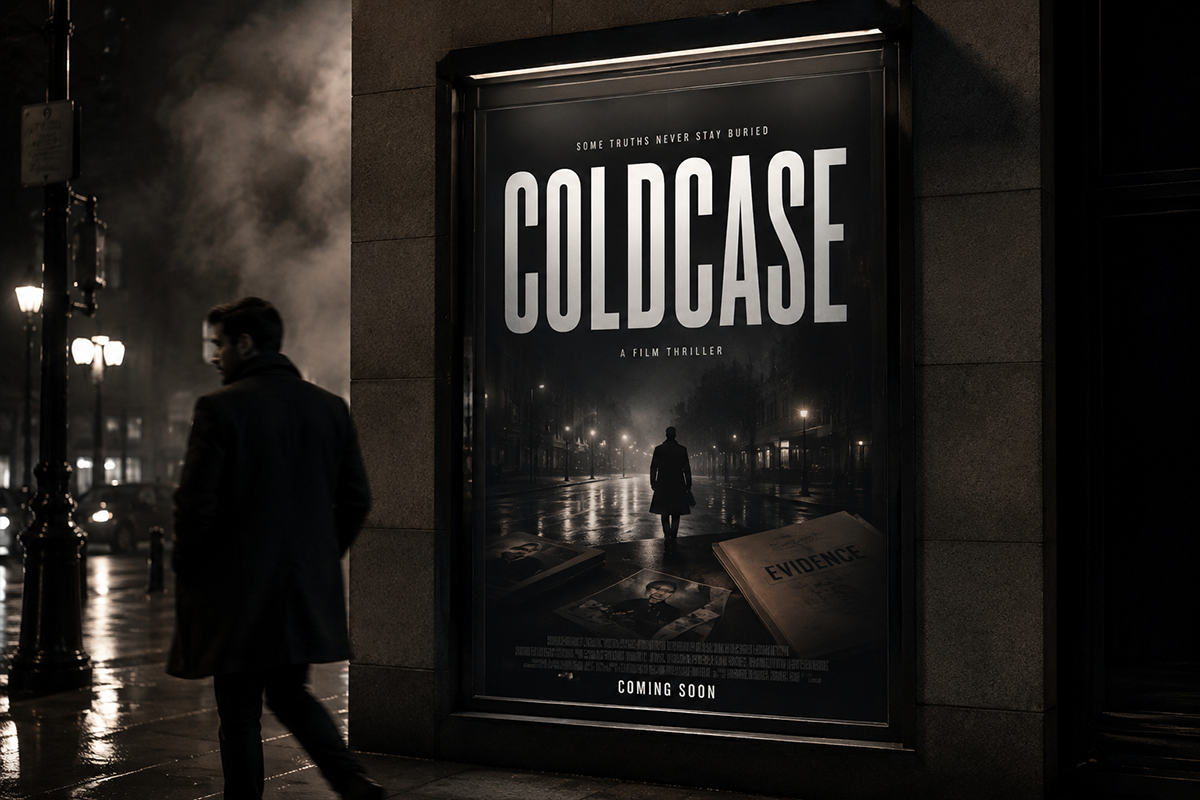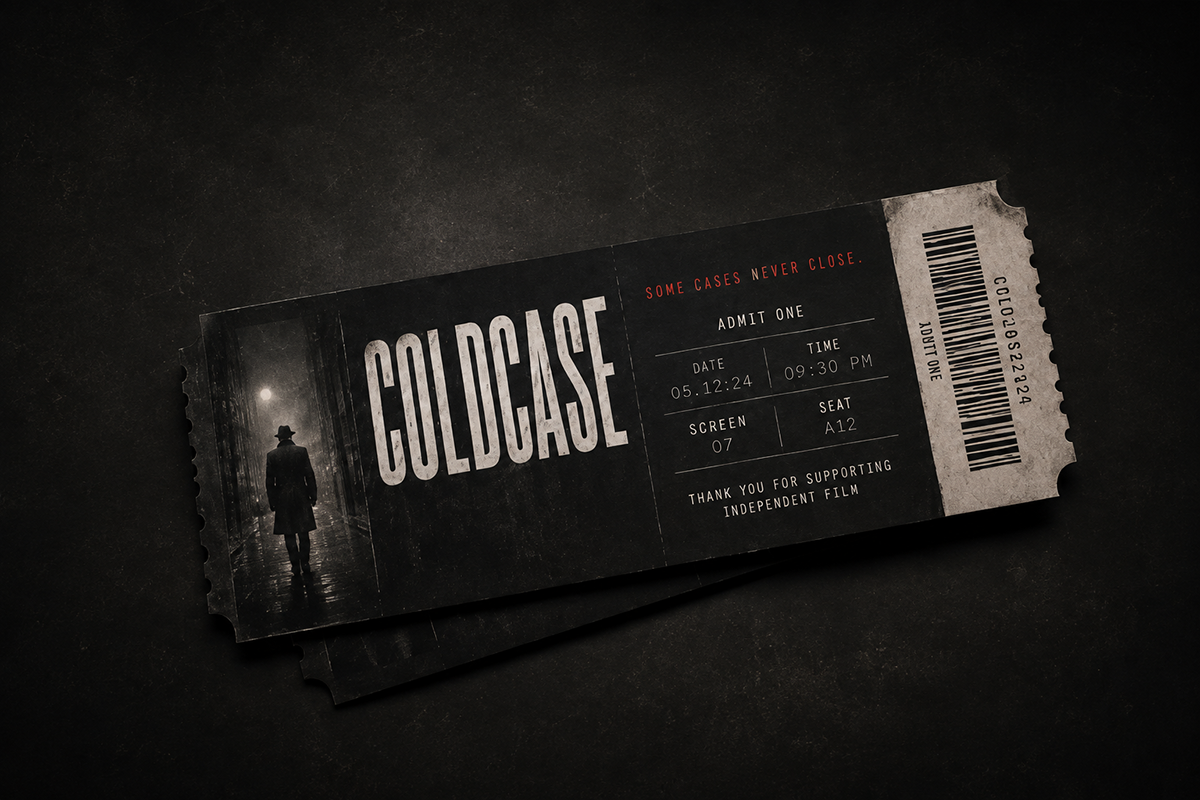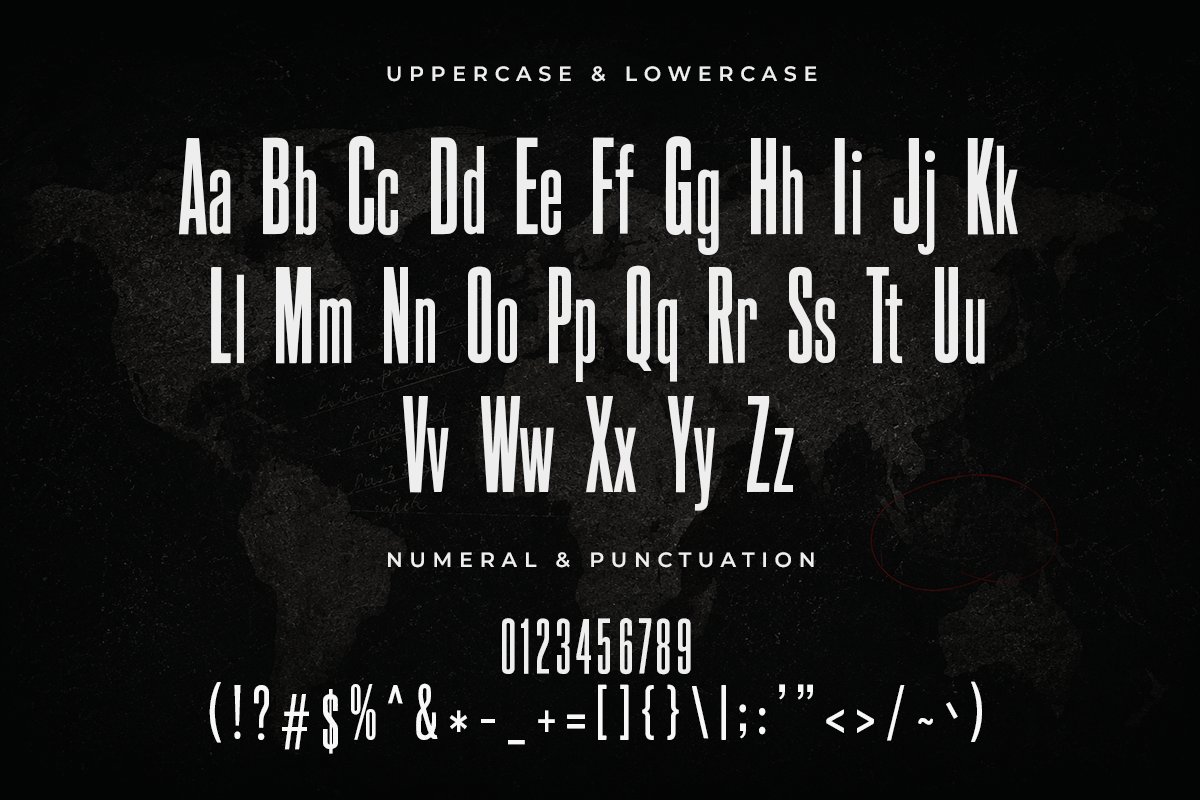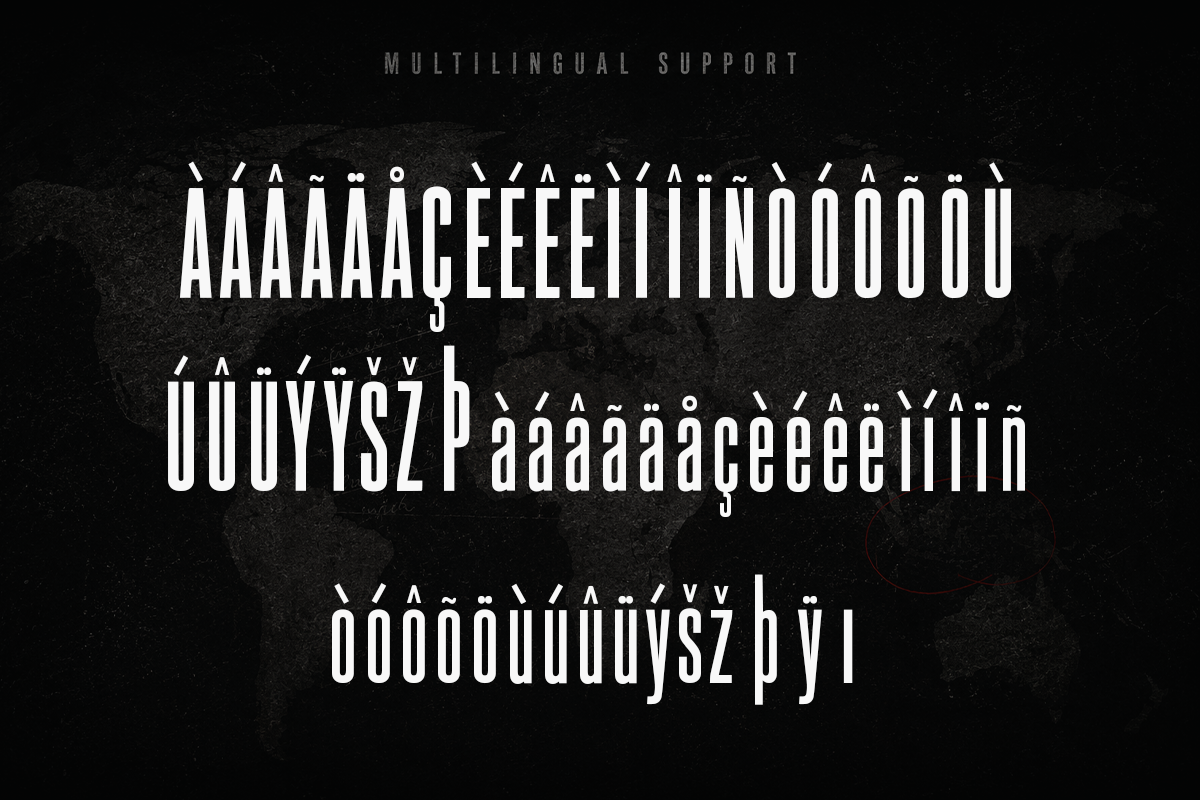
Coldcase is a bold and condensed display font inspired by classic crime films, mystery investigations, noir cinema, and psychological thrillers. Its tall, narrow letterforms create a tense, cinematic atmosphere while delivering a strong and commanding visual presence.
Perfect for designs that need a dark, mysterious, investigative, and cinematic feel, Coldcase works especially well for movie titles, thriller posters, crime branding, book covers, streaming thumbnails, TV series artwork, editorial headlines, album covers, apparel, and promotional graphics.